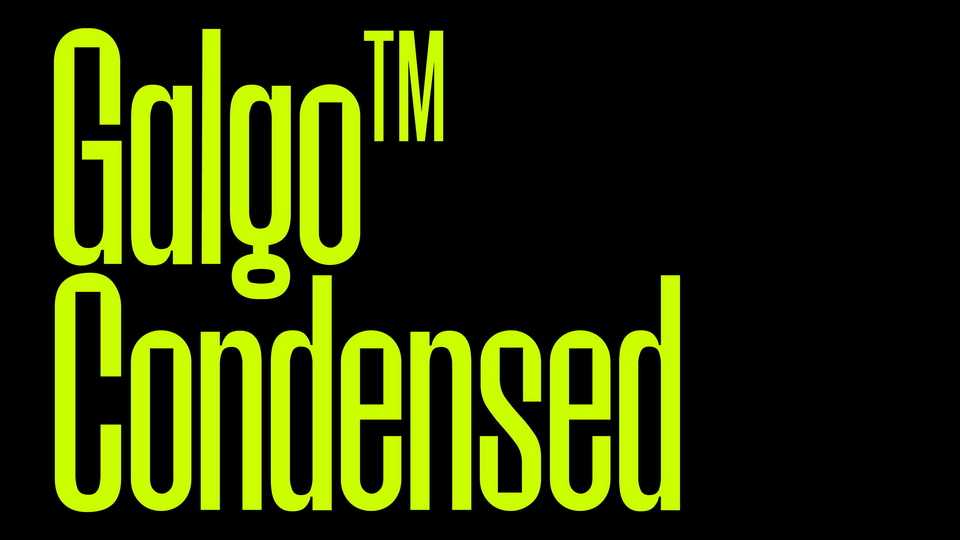
Download Galgo Condensed font, a narrow neutral geometric sans serif inspired by Morganite typeface by Rajesh Rajput. Galgo Condensed works best at larger sizes, making this a typeface for posters, headlines, and anywhere to make a impact.
Designer: Giulia Boggio